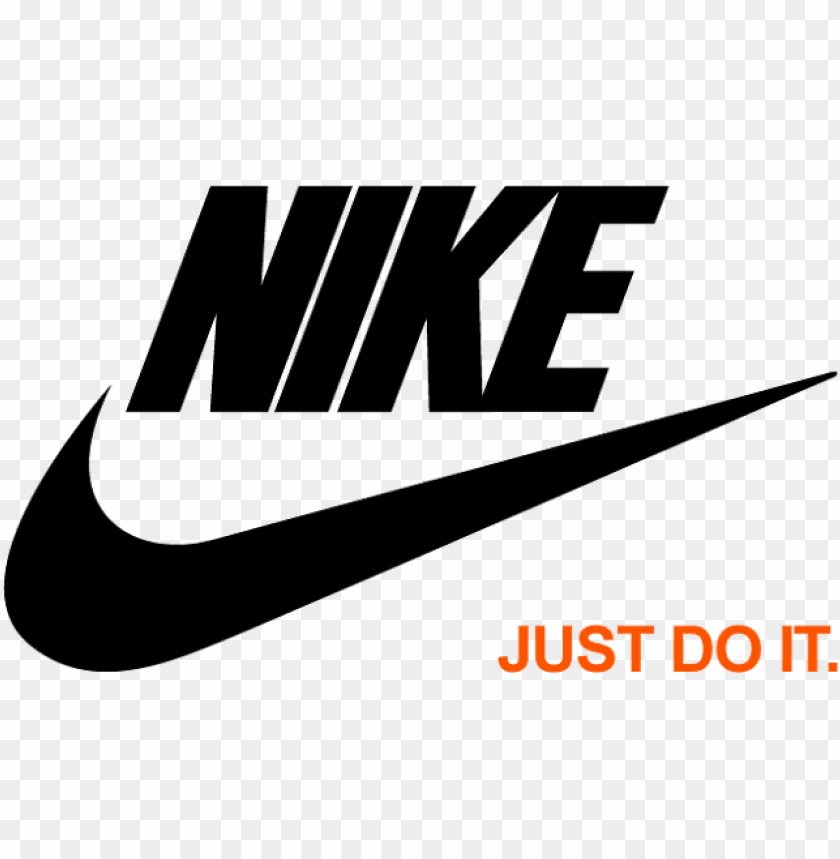
Nike Just Do It Font Dafont
77 professional just do it fonts to download. He said that a graphic sign is just a drawing that conveys energy and movement. If you want to create professional printout, you should consider a commercial font.
I just need to know what this nike font is. If you want to get this freeware font then click on the below download button to download it on your operating systems. The font used for the slogan text is futura condensed extra black by paul renner.
It's Not Impact, I Know That.
Free fonts often have not all characters and signs, and have no kerning pairs (avenue ↔ a venue,. Futura condensed extra black, used on the nike logo, is called nike font. Swoosh logo symbolizes greek goddess of victory’s wing ‘nike’ is named after ancient greek goddess of victory, nike.
The Main Purpose Behind Its Creation Is To Compete With Ludwig & Mayer’s Seminal Erbar Typeface Of 1926.